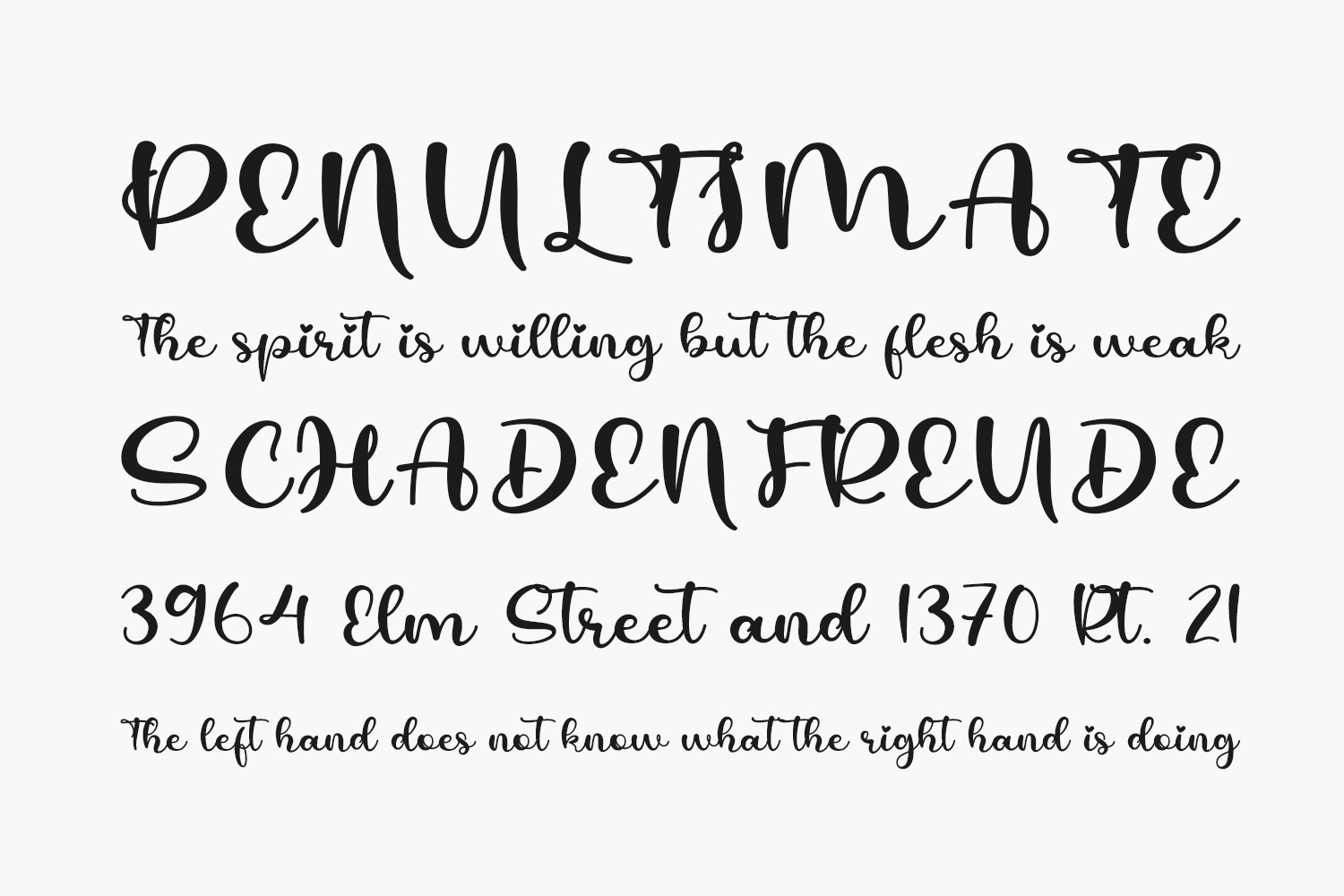
Rosalie Free Font is a modern font created in a calligraphic style. Its friendly feel makes this font incredibly versatile, fitting a wide range of contexts. It looks stunning on thank you cards, quotes, greeting cards, logos, business cards, and so much more. Rosalie Free Font was designed by Letter Art Studio and is free for personal use only. Please purchase the full version for commercial use.